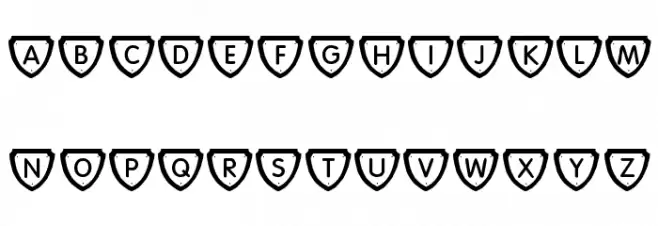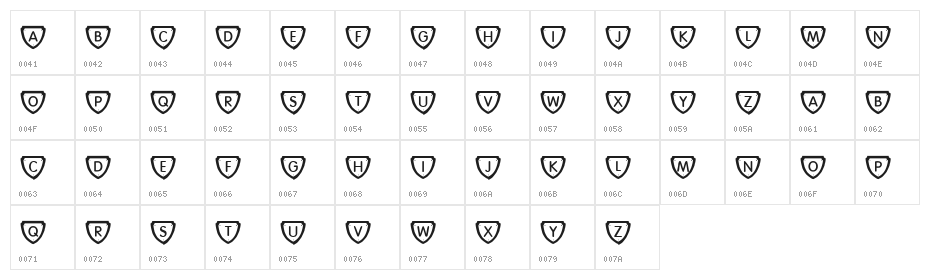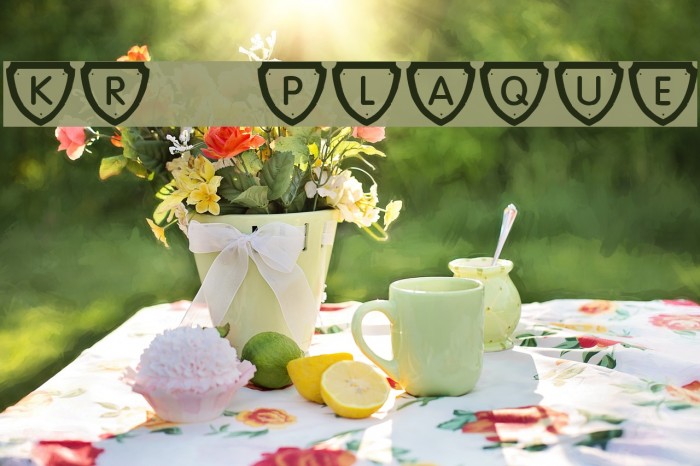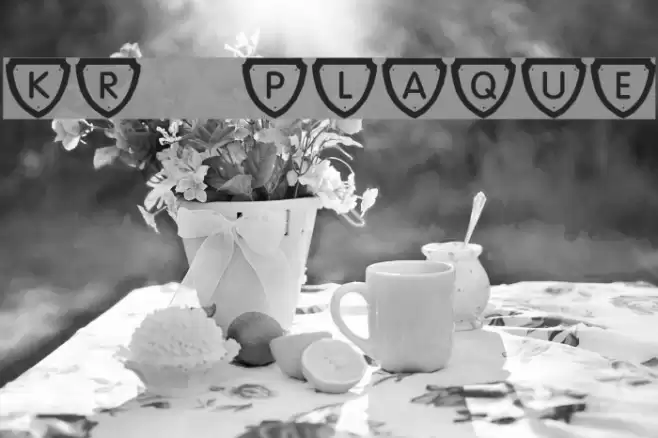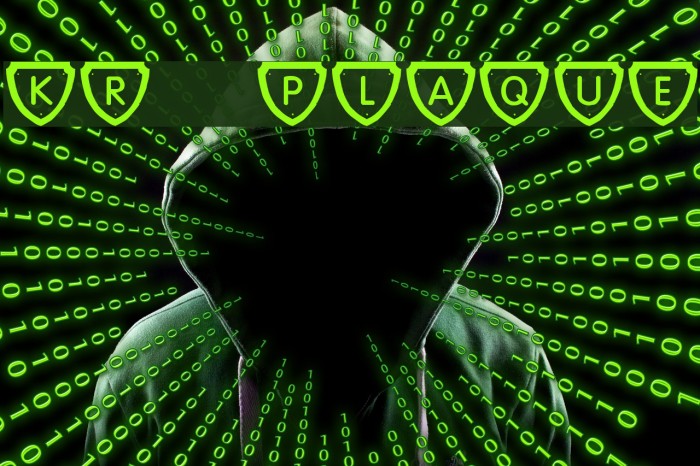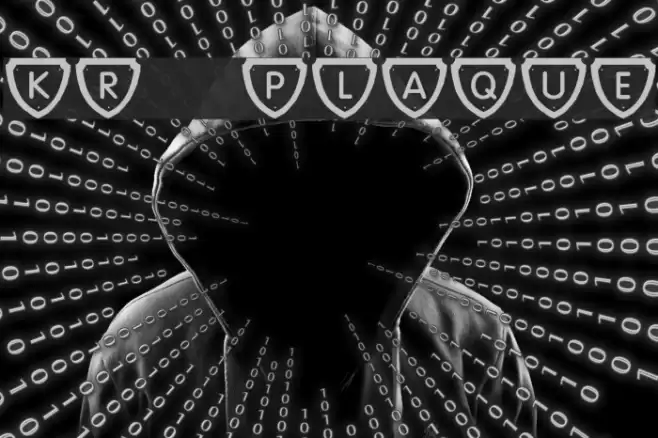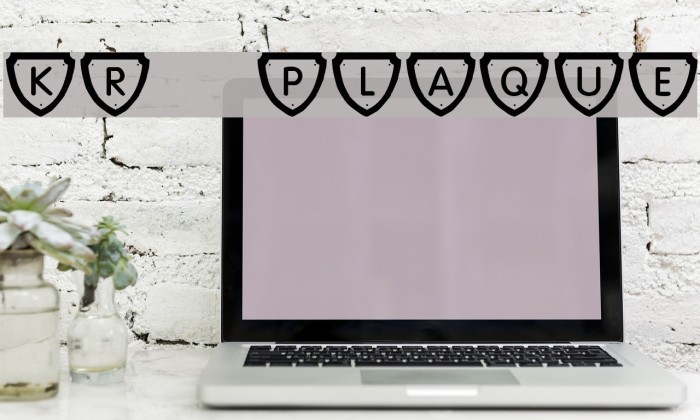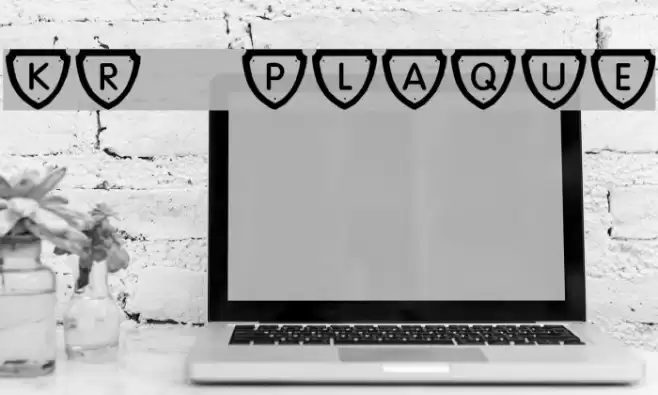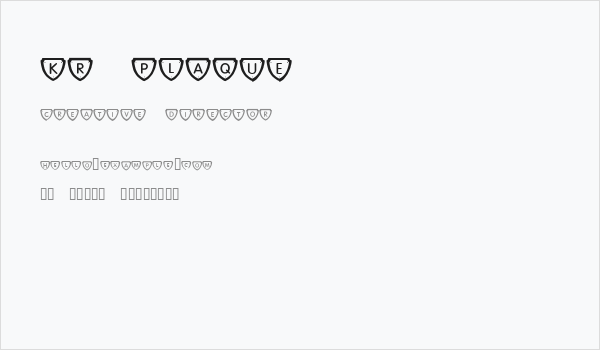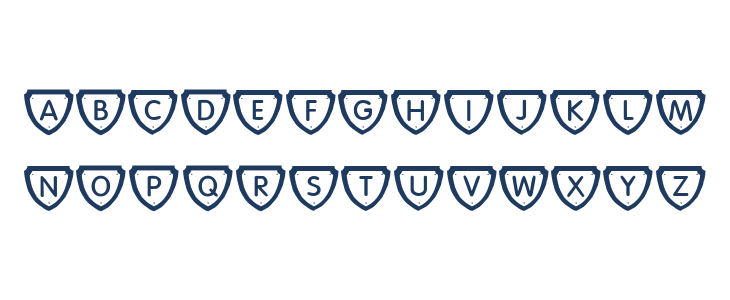
KR Plaque Font
KR Plaque Description
This font features a unique design where each character is enclosed within a shield-like shape, giving it a distinctive and bold appearance. The letters are uppercase and maintain a consistent size and shape, creating a uniform look across the alphabet. The font's style is reminiscent of heraldic symbols, making it suitable for projects that require a strong, authoritative presence. The characters are well-defined with clear lines and a moderate stroke width, ensuring readability while maintaining its decorative nature.
| Use Case | Logos, Headlines, Banners |
| Proposed Projects | Ideal for logos, banners, or any design requiring a strong, authoritative aesthetic. |